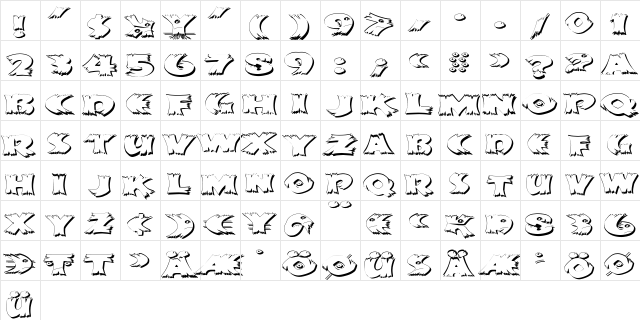
KlitschKOtiquaShadow Regular Font Preview
KlitschKOtiquaShadow Regular
Design Context for KlitschKOtiquaShadow Typeface
KlitschKOtiquaShadow brings ornamental detail and strong personality to headlines and identities, where visual impact matters more than quiet functionality.
Font Pairing: Pair with a clean neutral sans-serif for body copy to let KlitschKOtiquaShadow's character lead without overwhelming the composition.
Pro Tip: Use KlitschKOtiquaShadow exclusively at display sizes — it was designed to be seen, not read at length. Let a neutral companion handle body copy.